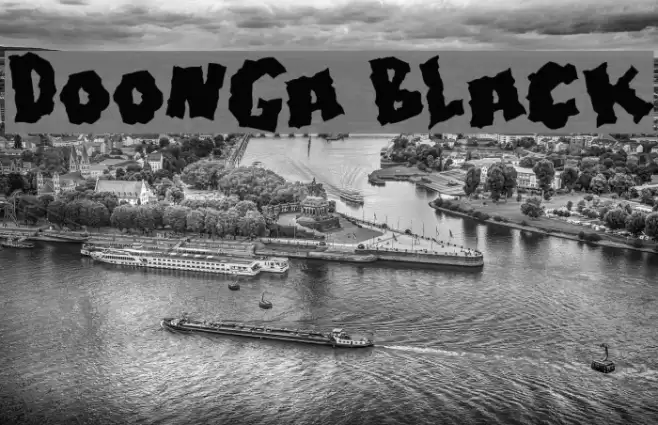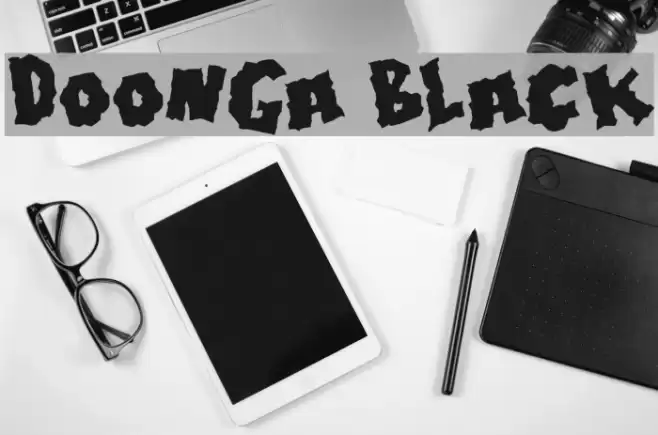
Doonga Black Font
Doonga Black Description
This font features a bold and rugged design with an irregular, jagged edge that gives it a raw and dynamic appearance. The characters are heavily stylized, with a hand-cut look that suggests a sense of movement and energy. The uppercase and lowercase letters maintain a consistent style, with thick strokes and uneven edges that create a sense of unpredictability. Numbers and special characters follow the same aesthetic, ensuring a cohesive look across all elements. This font is ideal for projects that require a bold statement or a touch of rebellious flair.
A bold, rugged font with jagged edges and a dynamic, hand-cut appearance from Uncategorized fonts.
- Proposed Projects: Ideal for album covers, posters, streetwear branding, or any project needing a bold, edgy statement.